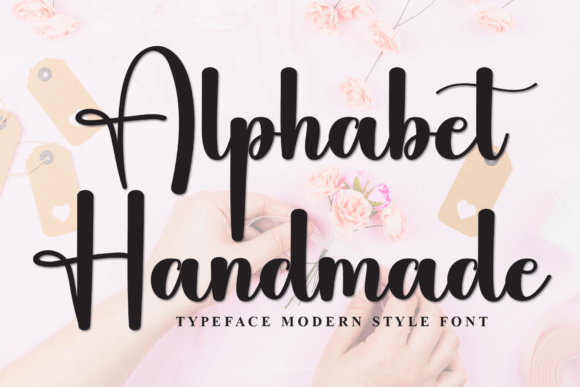
Enter the Alphabet Handmade Font, a charmingly distinctive, handwritten display font that exudes both sweetness and friendliness. This delightful font is perfect for penning romantic wedding invites, heartfelt cards, or any creative design craving a touch of playful uniqueness. With its cursive styling, it adds just the right amount of quirk to your projects, providing a lighthearted touch to all your creations.
Alphabet Handmade Font Key Features
- Font Family: Alphabet Handmade Font offers a unique, handwritten style with a personal touch.
- Unique Characteristics: Features a mix of uppercase and lowercase letters with subtle imperfections, giving it a natural, handwritten feel.
Designer Review: Alphabet Handmade Font
- ✨ Unique and Handmade Feel: This font has a charming, hand-crafted look that sets it apart from more common fonts.
- ✨ Versatility: It’s suitable for various design projects, from headings to body text, and can be used in a range of contexts, from print to digital media.
- ✨ Good Legibility: Despite its handmade appearance, the font is still easy to read, which is essential for any font used in body text.
- ⚠️ Limited Character Set: One of the main drawbacks of the Alphabet Handmade Font is its limited character set, which may not be suitable for longer texts or languages with complex character sets.
- ⚠️ May Require Additional Styling: Depending on the design project, the font may require additional styling to make it stand out, which can add to the overall design time.
Overall, the Alphabet Handmade Font is a great addition to any designer’s toolkit, but it’s essential to be aware of its limitations before using it in a project. With careful selection and styling, it can add a unique touch to your designs.
To get the most out of Alphabet Handmade Font, try combining it with other fonts and design elements to create a unique and eye-catching look. You can also use the font in bold or italic styles to add emphasis to your text.
Alphabet Handmade Font is ideal for use in creative projects such as invitations, posters, and social media graphics. It’s also a great choice for use in branding and marketing materials, such as logos and business cards.
Alternatives to Alphabet Handmade Font
Great Vibes is a handwritten script font designed by Pablo Impallari and Martin Sommerness. It’s perfect for creating a casual, friendly tone and is often used in invitations, greeting cards, and social media graphics. Great Vibes has a similar feel to Alphabet Handmade Font, but with a more polished and refined look.
Alex Brush is a calligraphic script font designed by Laura Worthington. It’s ideal for creating elegant and sophisticated designs, such as wedding invitations, luxury branding, and fine art prints. Compared to Alphabet Handmade Font, Alex Brush has a more refined and classic look, making it suitable for high-end projects.
Carolyna Pro is a modern script font designed by Alejandro Paul. It’s perfect for creating stylish and contemporary designs, such as fashion branding, advertising, and editorial content. Carolyna Pro has a more dynamic and expressive feel compared to Alphabet Handmade Font, making it suitable for projects that require a bold and modern look.